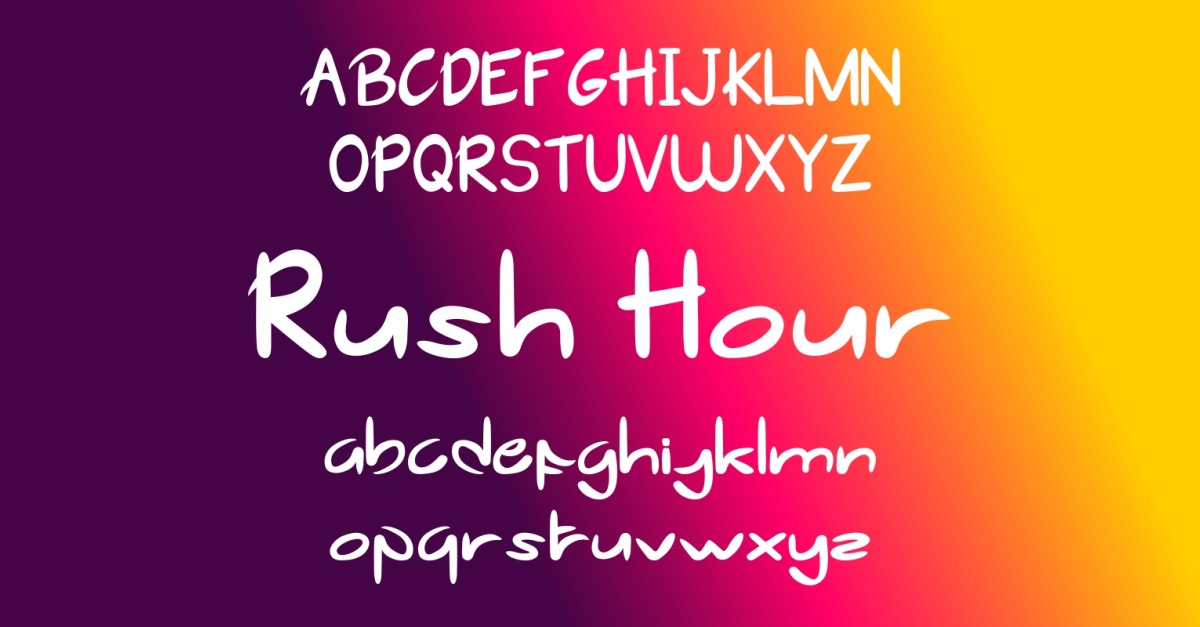
Modern Rush Hour Font Design
**1. Aesthetic Appeal:
Modern fonts are often designed with clean lines, sharp edges, and minimalist features, making them visually appealing and contemporary. Their sleek appearance can give a fresh and stylish look to any design project, from digital interfaces to print materials.
**2. Versatility:
Modern fonts are highly versatile and can be used across a wide range of media and design contexts. They work well in both digital and print formats, and their clean, crisp lines make them suitable for various applications, including websites, logos, advertisements, and editorial design.
**3. Readability:
Many modern fonts prioritize readability, especially on digital screens. Their clear, straightforward design ensures that text is easy to read, even at smaller sizes. This makes them an excellent choice for user interfaces, mobile apps, and websites where legibility is paramount.
**4. Professionalism:
The refined and polished look of modern fonts can convey a sense of professionalism and sophistication. This makes them ideal for corporate branding, business presentations, and formal communications. Their understated elegance can enhance the credibility and authority of the content they are used to present.
**5. Emphasis on Simplicity:
Modern fonts often embrace simplicity and minimalism, which aligns with contemporary design trends. This simplicity can help create a clutter-free and focused design, allowing the core message to stand out without unnecessary distractions. This is particularly important in an age where users are bombarded with information and attention spans are short.
**6. Customization and Variability:
Many modern font families come with a wide range of weights and styles, providing designers with the flexibility to create a cohesive yet varied typographic system. This variability allows for greater creativity and adaptability in design, enabling the same font family to be used for headlines, body text, captions, and more.
**7. Compatibility with Modern Technologies:
Modern fonts are often designed to be compatible with various technologies and platforms. They are optimized for use on different screen resolutions and devices, ensuring a consistent and high-quality appearance across desktops, tablets, and smartphones. This cross-platform compatibility is essential in the current multi-device environment.
**8. Trend Alignment:
Using modern fonts can help ensure that designs feel up-to-date and relevant. They are often in line with the latest design trends, making them a popular choice for brands and projects that aim to appear current and forward-thinking.
**9. Flexibility in Branding:
The clean and neutral nature of many modern fonts makes them suitable for a wide range of branding needs. They can be easily paired with other design elements, colors, and styles without clashing, providing a flexible foundation for creating a unique brand identity.
**10. Support for Multilingual Use:
Many modern fonts support a wide range of languages and character sets, which is increasingly important in a globalized world. This ensures that the same font can be used for international communications, maintaining consistency in brand and design across different languages and regions.